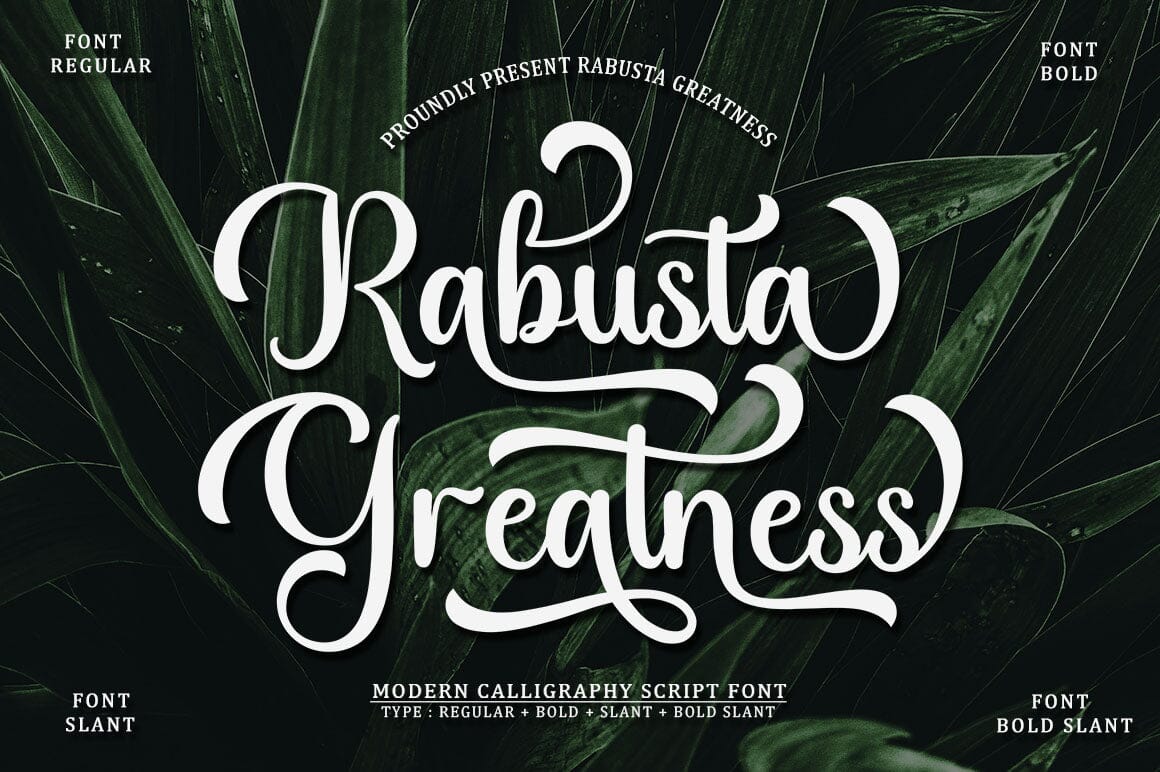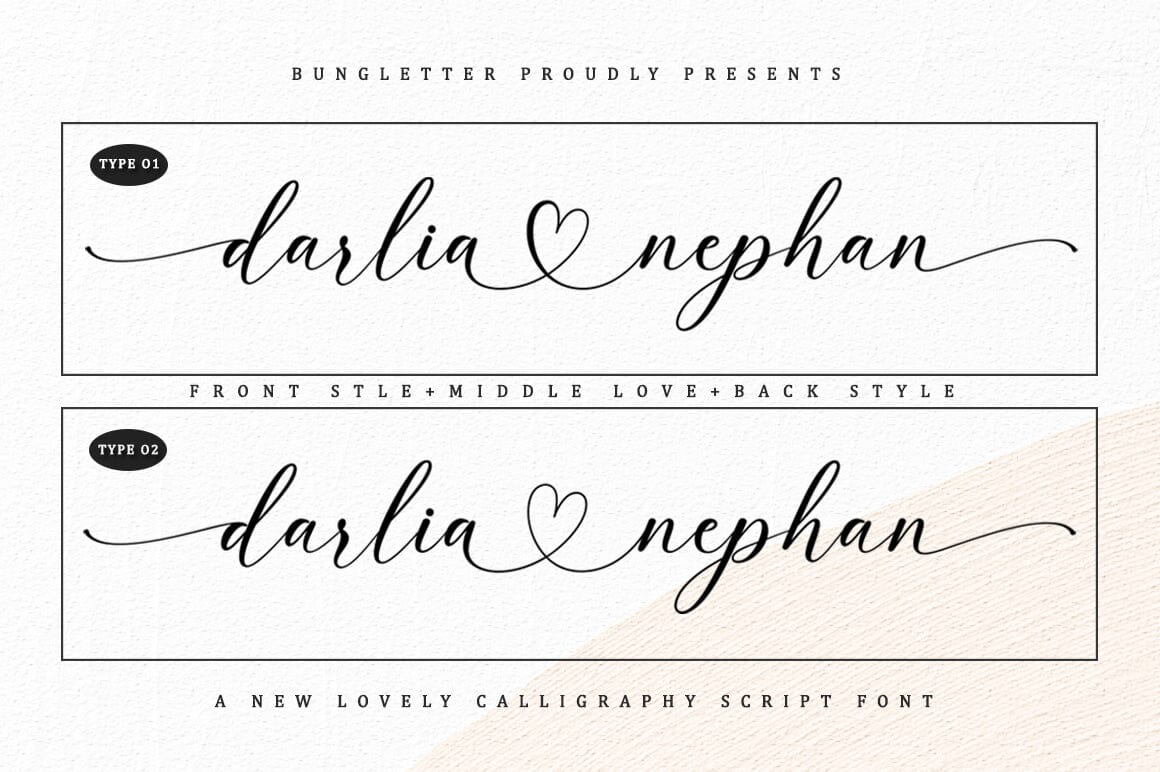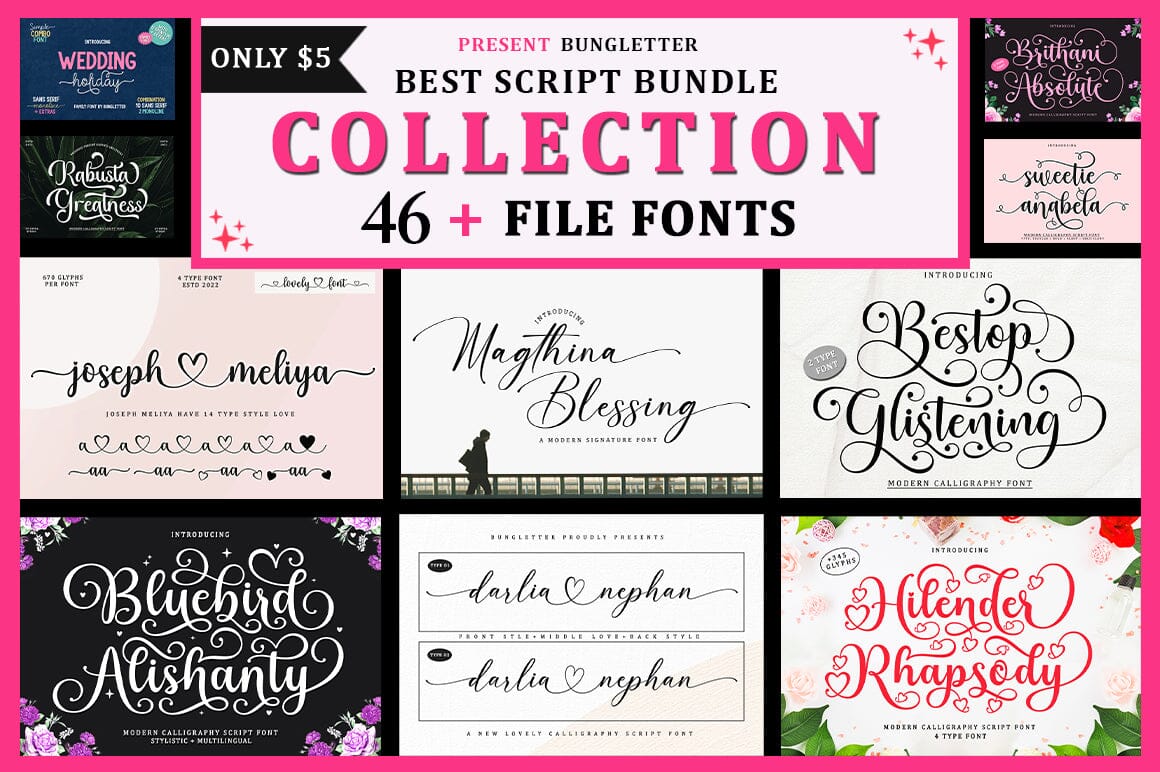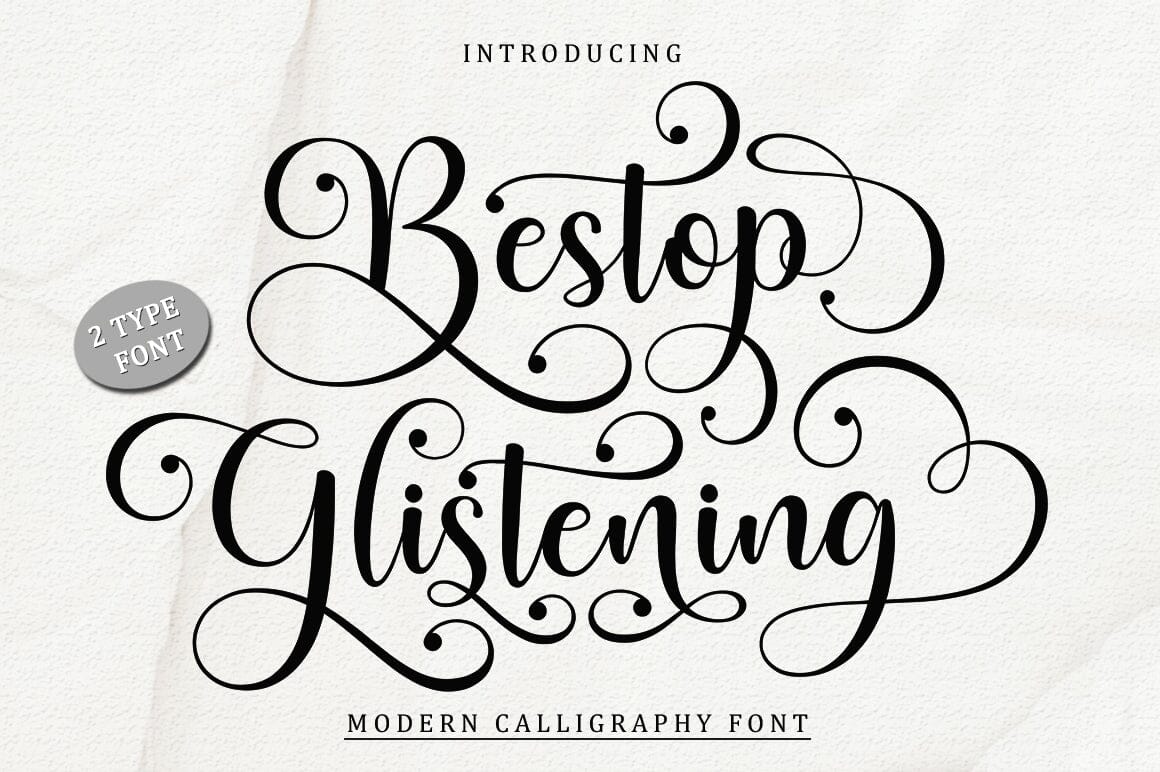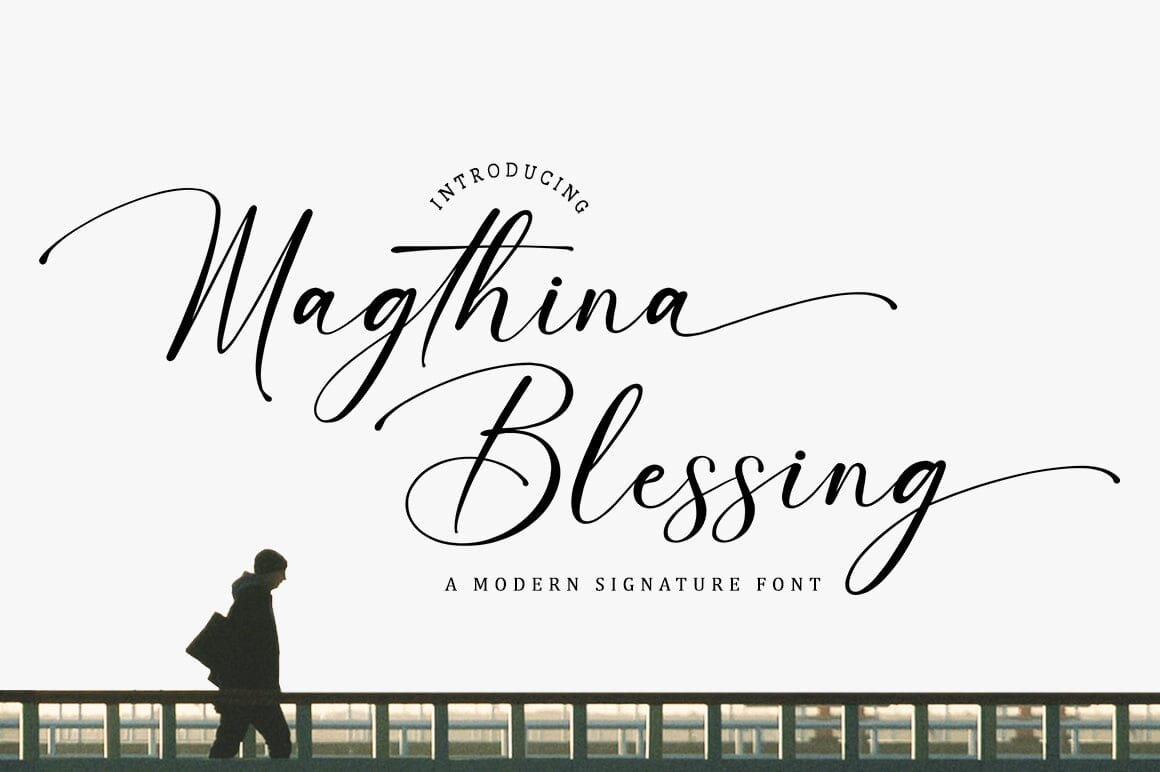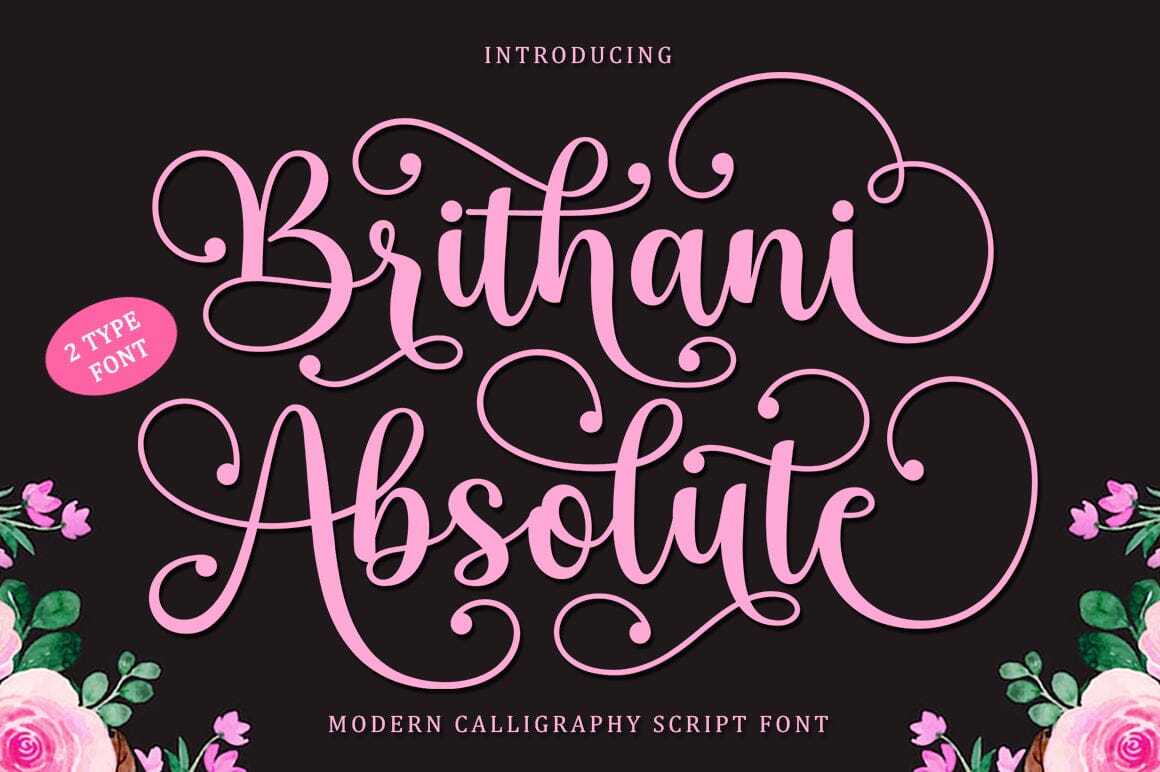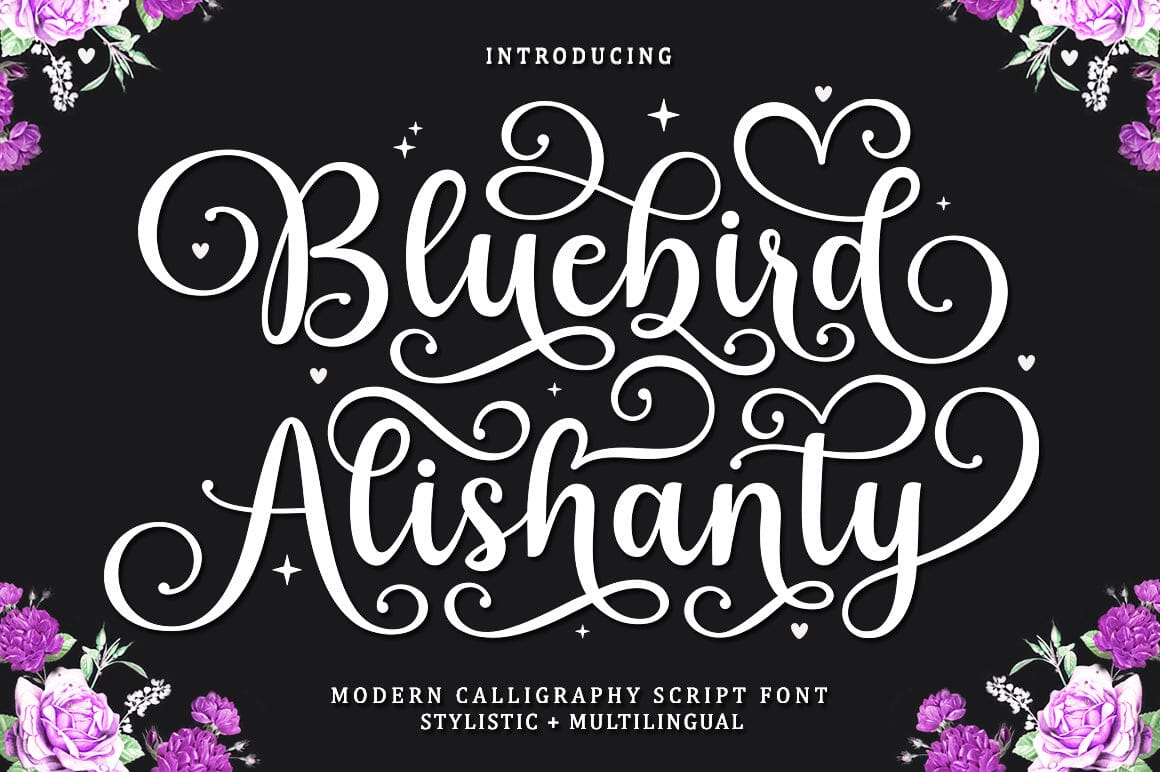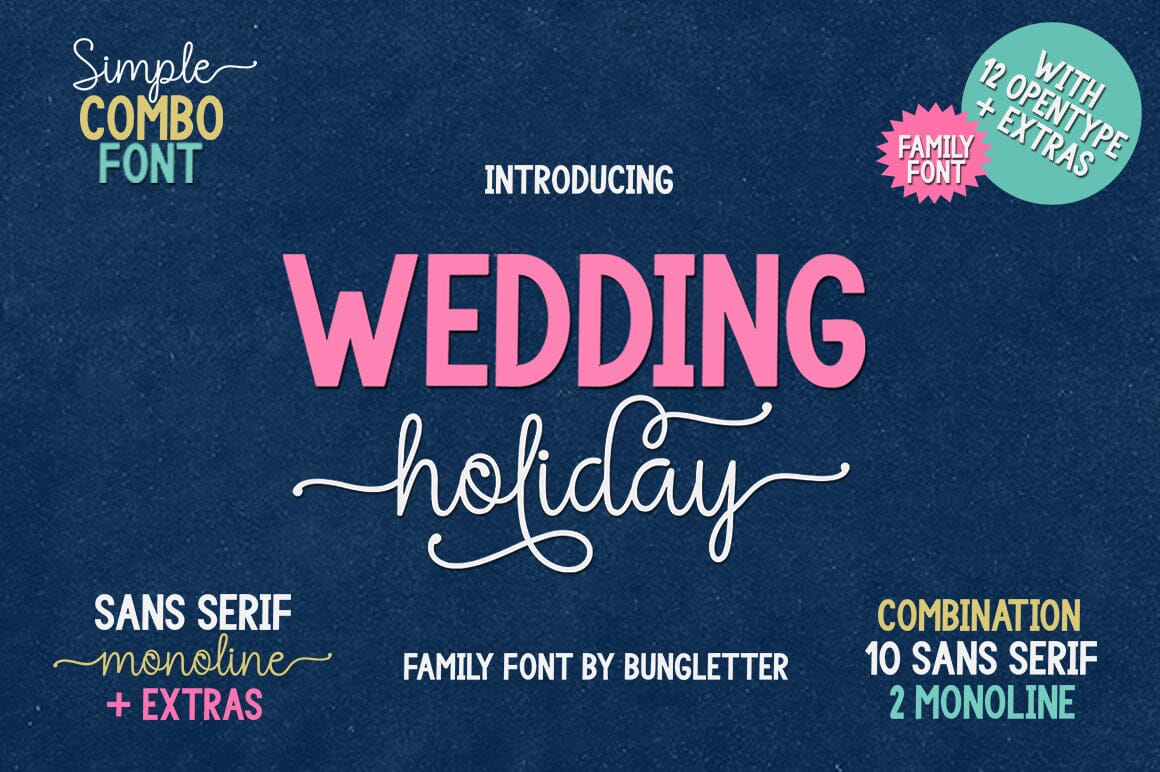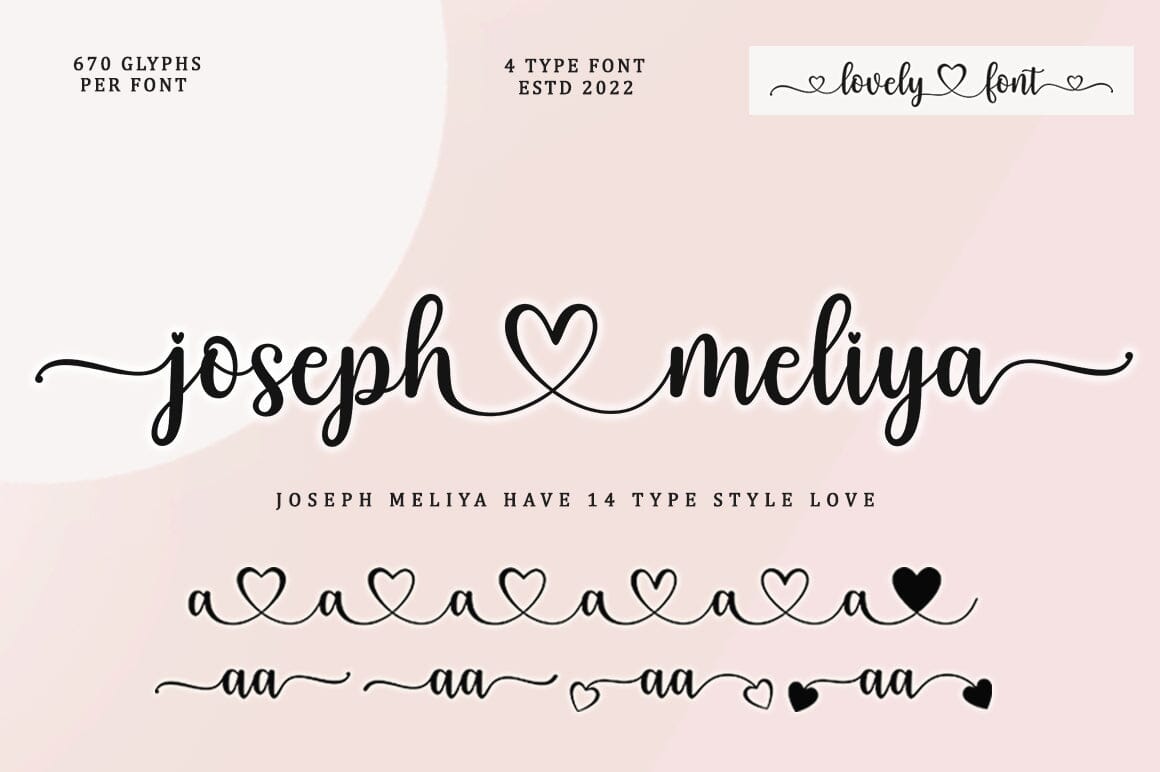
Best Script Bundle Collection
About Best Script Bundle Collection
This is your chance to get all my fonts for a regular total price of $144 and now you can have them for just $5 ! Includes 46 font files. This bundle includes various font styles such as, calligraphy, signature, brush lettering, handwriting, and more. with hundreds of glyphs, including alternatives, straps, slashes, and international language support. This pack is perfect for greeting cards, branding, business cards, quotes, posters, stickers, blogs, logos, weddings, signage, packaging, birth announcements, photo overlays, wall art, quotes, printed materials, bags, t-shirts and many more . . . . ! (attention) This offer is limited. This font comes in a zip file which includes OTF & TTF files Also supported is PUA encoded. Access Silhouette Studio compatible font characters, Cricut Design Space. Simply copy and paste alternative characters using Character Map (Windows), Nexus Fonts (Windows), Font Book (Mac) or a software program such as PopChar (for Windows and Mac). I hope you enjoy this font. If you have any questions, feel free to message me 🙂 Thank you for your purchase!